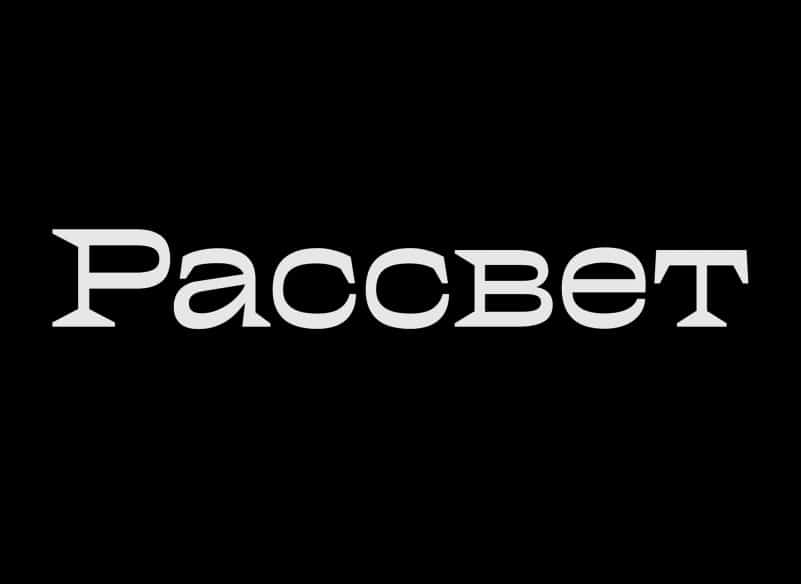
Rassvet Free Font
Thanks for checking out Rassvet Free Font. Rosvelit is designed to blend classic delicacy with modern rhythm of glyphs to suit any design works. It is a serif font from the designer Arthur Avtukhov. It’s Serif Font and also has vintage display font. Can make it easier to convey the message in your design. Use for awesome display, labeling, clothing, movie sceen, poster, movie title, gigs, album covers, logos, and much more. It’s also could be good for both fun and semi-formal text.